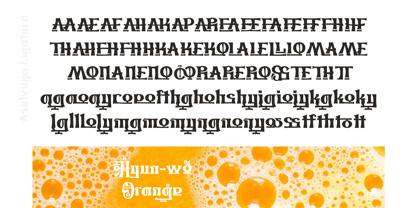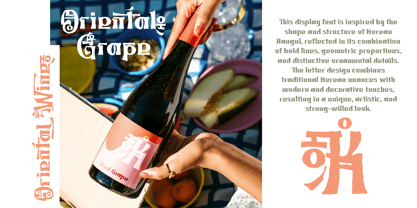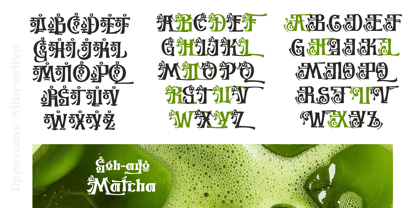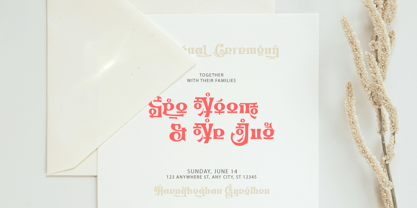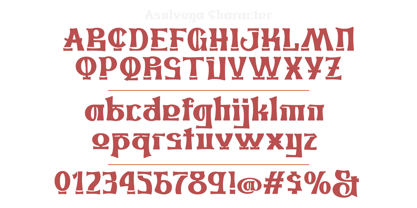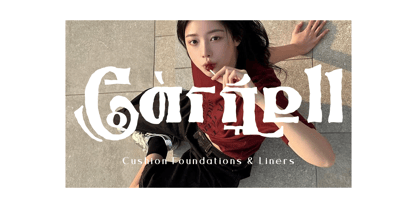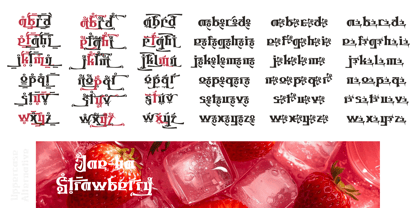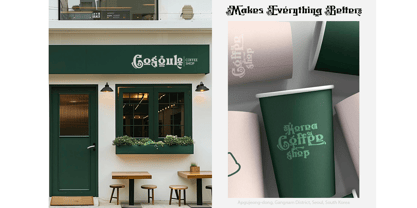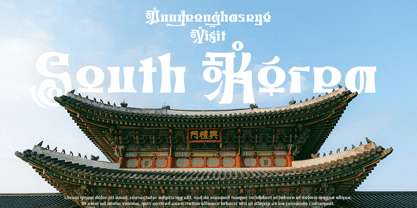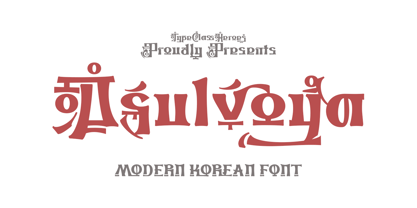
Asulvoya
by TypeClassHeroes
The Asulvoya Font Family was designed by Suandana ipandemade and published by TypeClassHeroes. Asulvoya contains 2 styles and family package options. More about this family
Introducing Asuvolya, this display font is inspired by the shape and structure of Korean Hangul, reflected in its combination of bold lines, geometric proportions, and distinctive ornamental details. The letter design combines traditional Korean nuances with modern and decorative touches, resulting in a unique, artistic, and strong-willed look. This font is perfect for various design needs, such as branding, posters, logos, album covers, merchandise designs, and social media content, especially for themes that emphasize aesthetics, Asian culture, edgy, or experimental elements. Its striking shape also makes it effective as a display font for titles or headlines, making them more eye-catching and memorable.